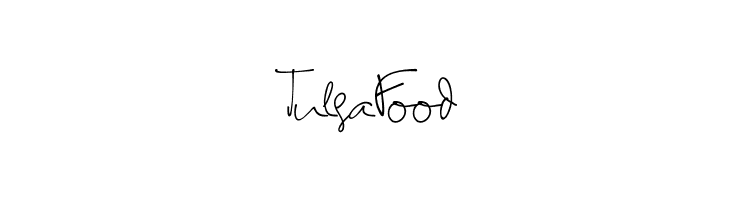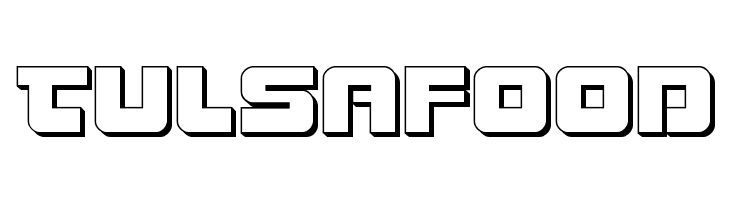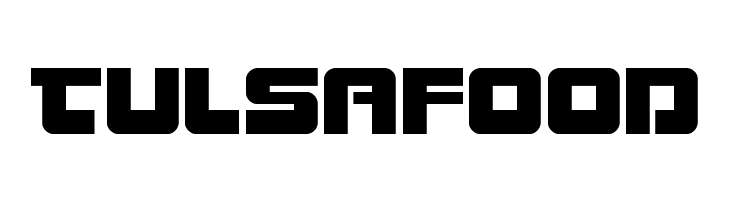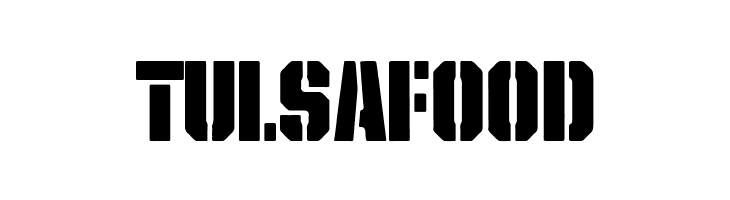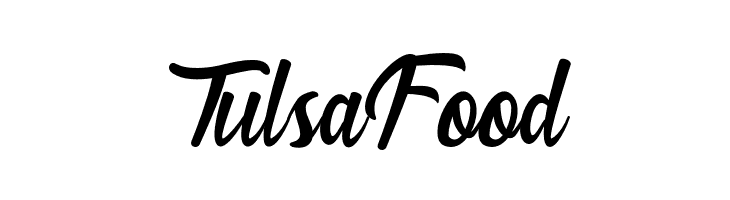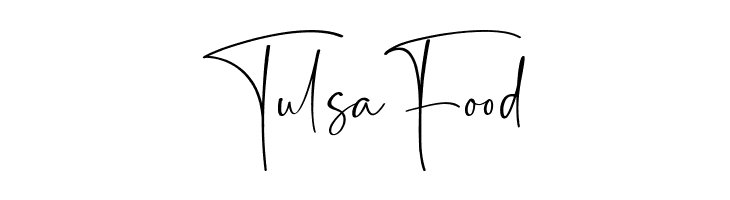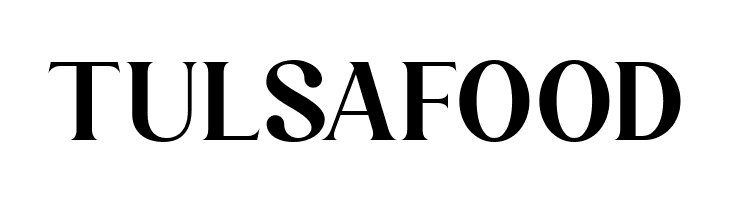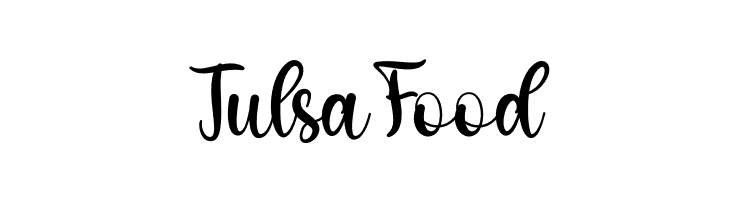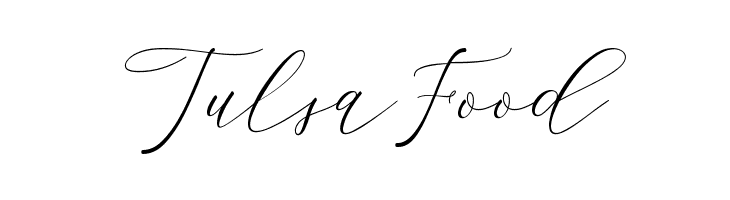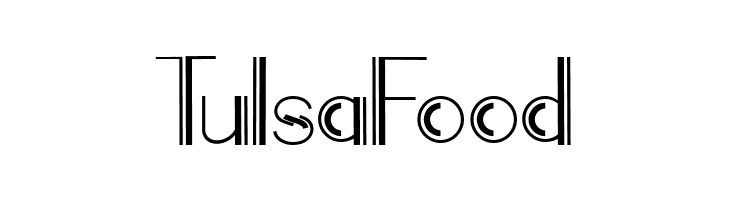
A playful, hand-drawn crayon-style font with textured, uneven strokes.
A bold, cursive script font with high contrast and elegant curves.
A playful, artistic handwritten font with bold, expressive strokes.
A graceful script font with fluid, connected strokes and a refined, elegant appearance.
A flowing, cursive font with elegant loops and swashes, perfect for artistic projects.
An elegant script font with flowing, interconnected letters and a sophisticated style.
A graceful and sophisticated script font with fluid, cursive strokes.
A playful, handwritten font with an organic, casual style.
A bold, elegant serif font with high contrast and pronounced serifs.
A playful and whimsical handwritten font with fluid, interconnected characters.
A bold, expressive script font with flowing, cursive letterforms.
A bold, modern sans-serif font with geometric precision and strong readability.
A modern, clean sans-serif typeface with excellent readability.
A modern, thin sans-serif font with a clean and elegant design.
A bold, modern sans-serif font with a clean and uniform design.
A clean, minimalist sans-serif font with geometric shapes and uniform line thickness.
An elegant script font with flowing, interconnected letters and high contrast strokes.
A modern, geometric font with clean lines and a minimalist aesthetic.
A sophisticated script font with elegant, flowing cursive strokes.
An elegant, flowing script font with intricate loops and flourishes.
A bold, textured font with a rugged, vintage appearance.
A bold, playful font with thick, rounded strokes and high contrast.
A flowing, cursive script font with elegant, interconnected characters.
A highly decorative and abstract font with intricate geometric patterns.
An elegant, flowing cursive font with graceful loops and swirls.
A graceful and flowing script font with elegant, cursive letterforms.
A bold, flowing script font with smooth, connected letters.
A sophisticated script font with flowing, cursive letterforms.
A bold, stencil-style font with geometric shapes and high contrast.
A flowing, cursive script font with elegant, interconnected strokes.
A playful handwritten font with smooth curves and whimsical details.
A modern, geometric font with clean lines and a uniform structure.
A bold, 3D futuristic font with outlined, blocky characters.